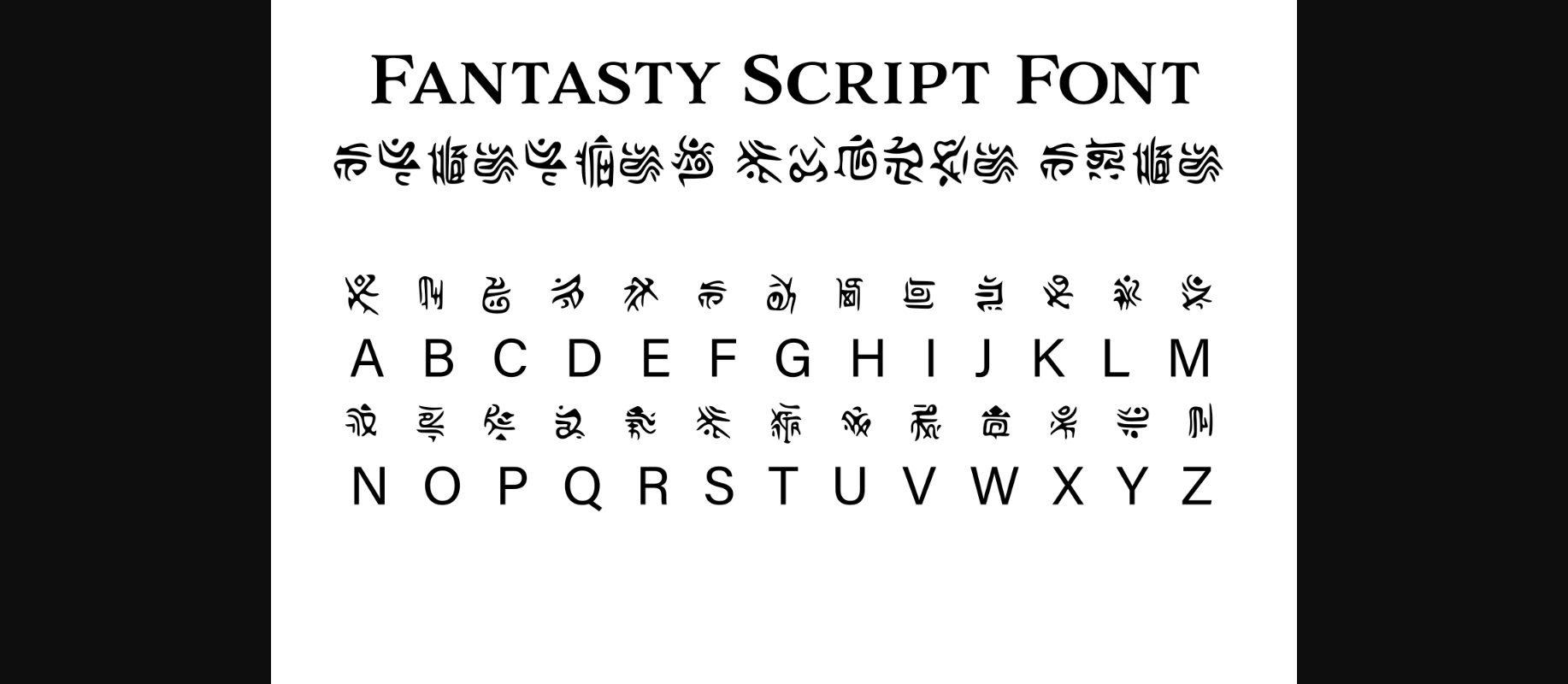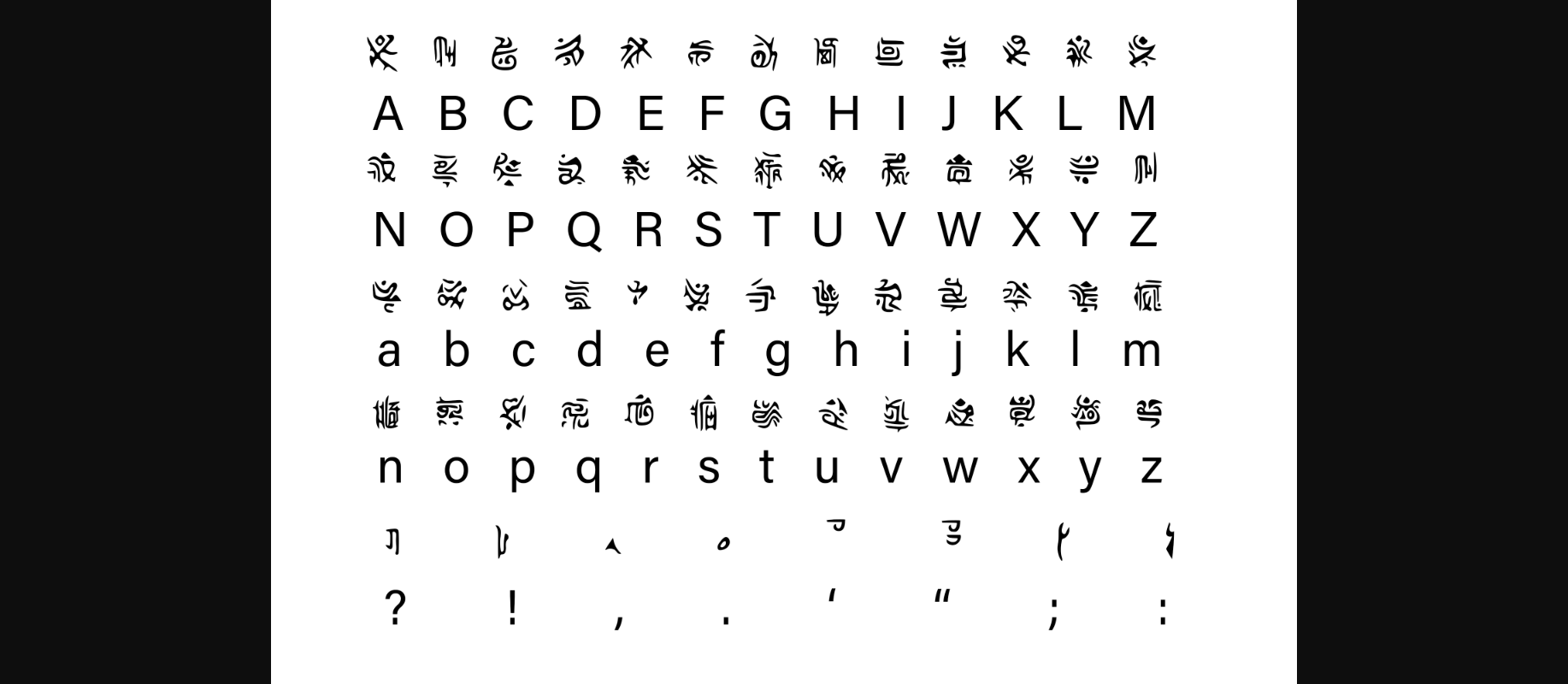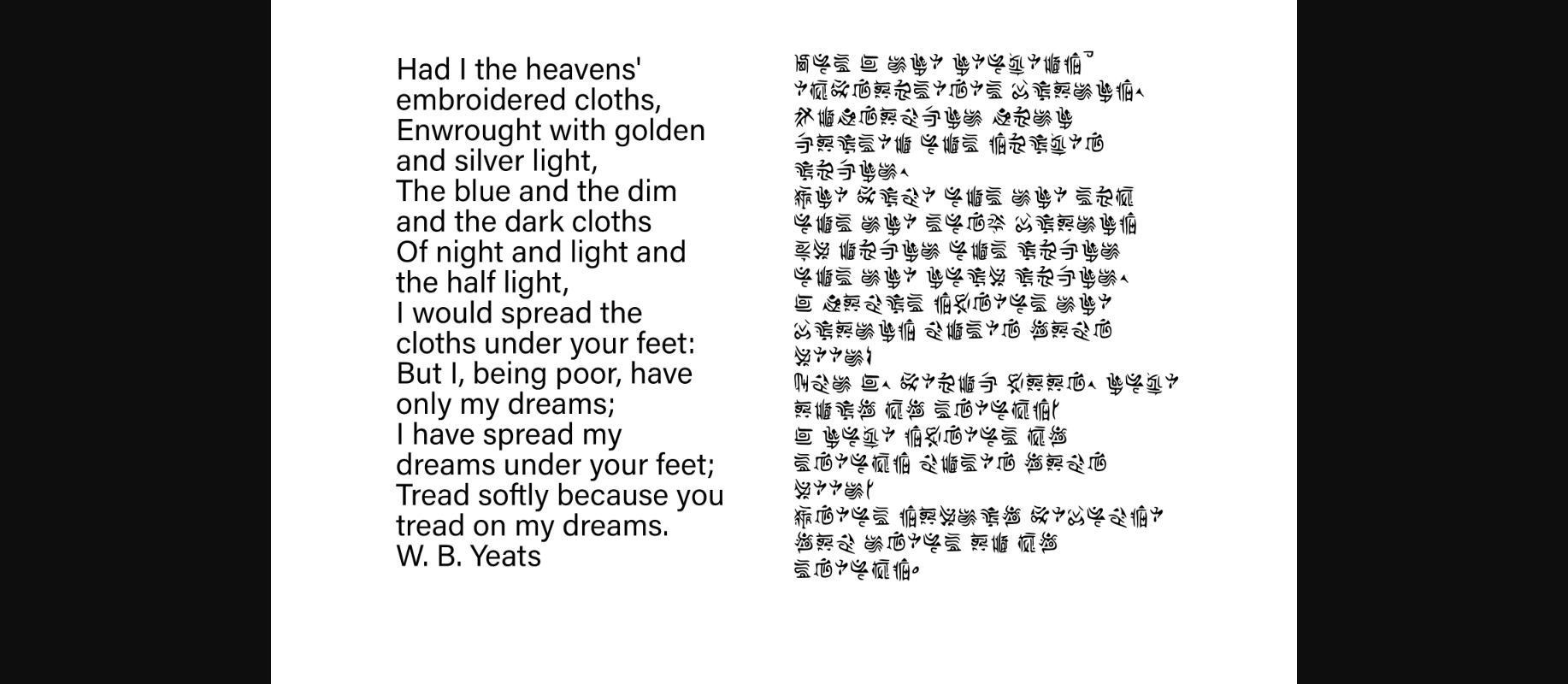
HomeDecorative FontsFantasy Script 7 Font Decorative Fonts Fantasy Script 7 Font FacebookXPinterestWhatsApp 1 of 5 ... Fantasy Script 7 Font Poster 2... Fantasy Script 7 Font Poster 3... Fantasy Script 7 Font Poster 4... Fantasy Script 7 Font Poster 5... About Fantasy Script 7 Font Fantasy is perfect for your next Dungeons and Dragons campaign, fantasy LARP adventure, novel, or whatever else you’re working on! This font includes the standard English alphabet and basic punctuation. DOWNLOAD NOW People also explored Play Hearts Font Right Side Up Font Mattew Font Summer Fishing Font Spider Leaf Font Snowman Cutie Font Devil Font Lovely Madness Font Morning Sundays Font 427 0 TagsFantasy Script 7 Font Previous articleFantasy Script 8 FontNext articleFantasy Script 6 Font LEAVE A REPLY Cancel reply Comment: Please enter your comment! Name:* Please enter your name here Email:* You have entered an incorrect email address! Please enter your email address here Website: Save my name, email, and website in this browser for the next time I comment. Personal Use Free Dacquoise Personal Use Free Read more about this font Dandelions Bloom Personal Use Free Read more about this font Browie Personal Use Free Read more about this font Market Love Personal Use Free Read more about this font BLOG Free Fonts Risk: Why Free Fonts Can Be Dangerous for Designers Free Fonts Risk: Why Free Fonts Can Be Dangerous for Designers Using free fonts is a common practice in web and graphic design. However, the... How to Install and Use Fonts on Windows, macOS, and Web Projects Best Fonts for T-Shirt Design – Top 2025 Picks Fonts That Capture the Spirit of New York City